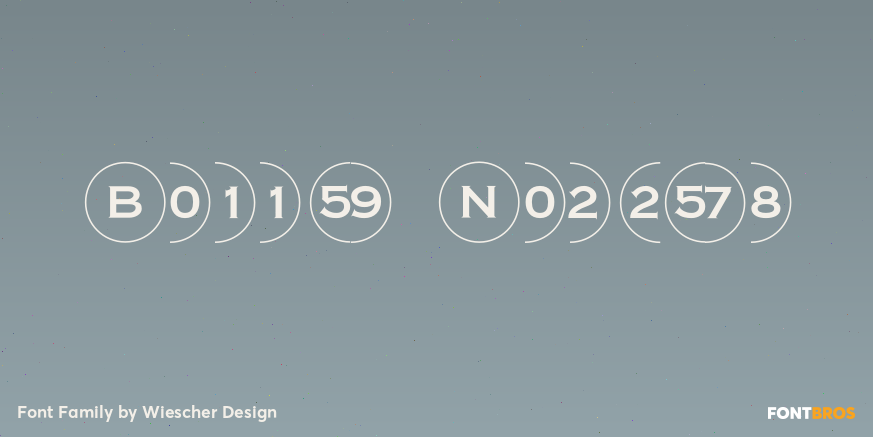
Bullet Numbers
About Bullet Numbers
This is a must read!!! BulletNumbers come in very handy for all kinds of lists that don\’t exceed 100 categories. I have long since been using my own BulletNumbers in positive and negative and four styles, serif, sans, engravers and script, a fitting…